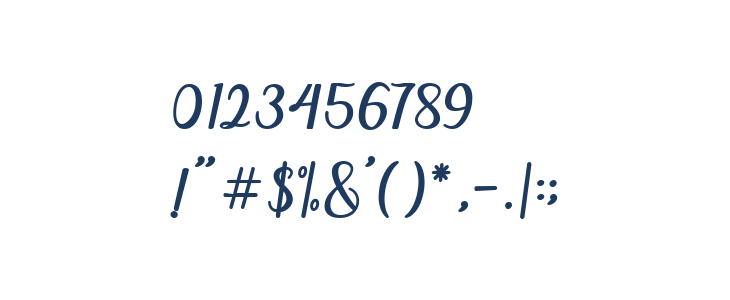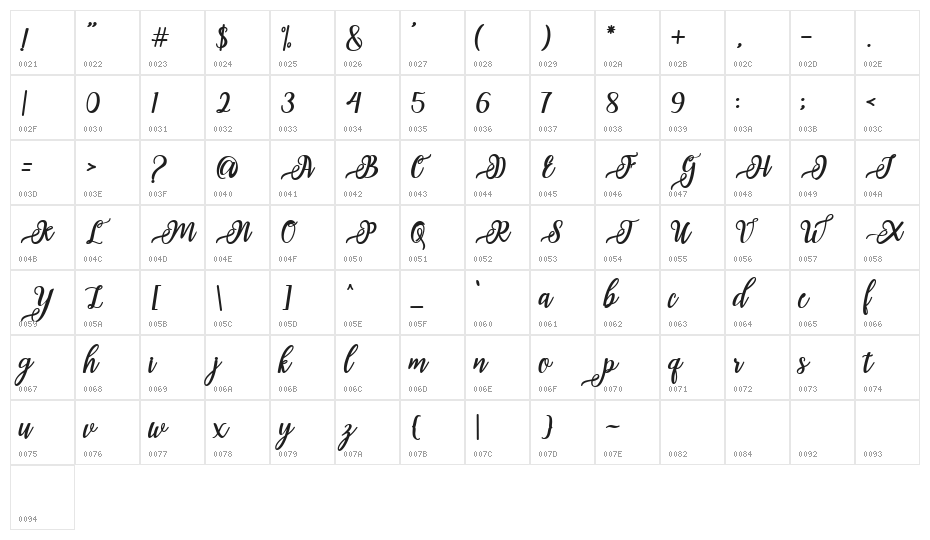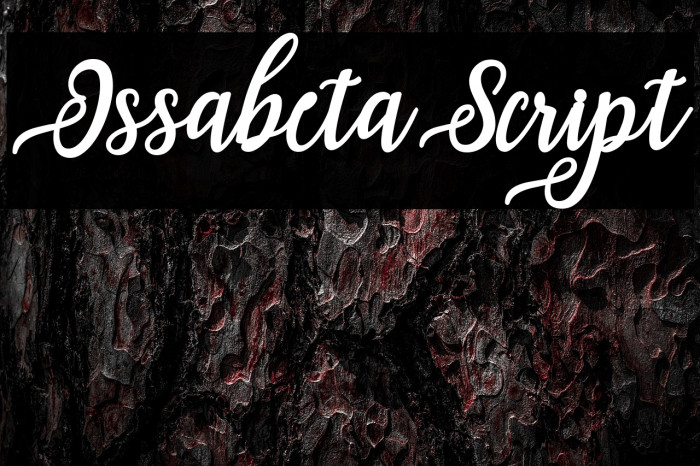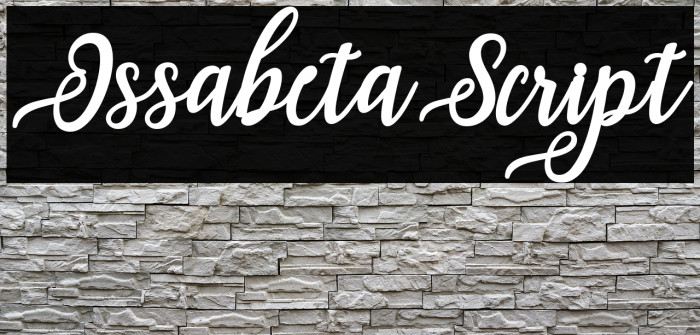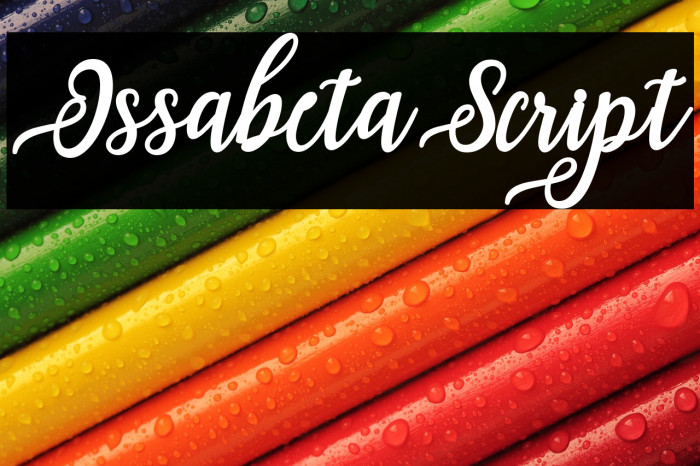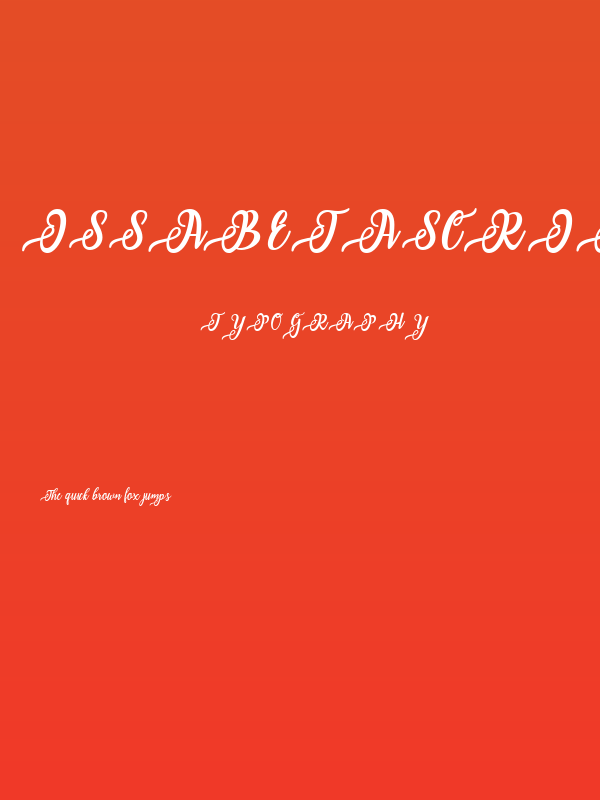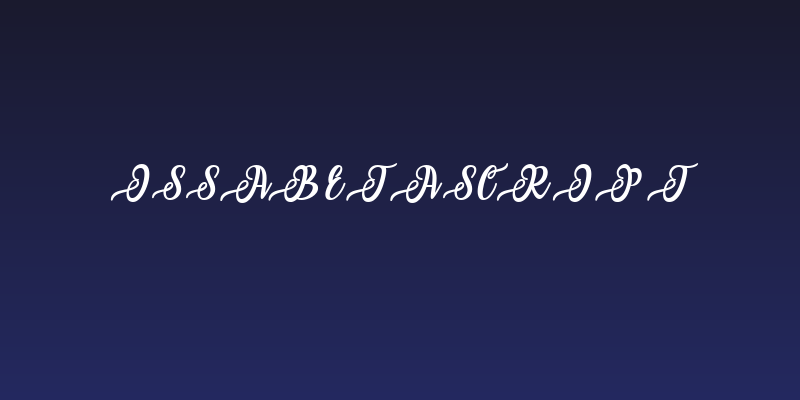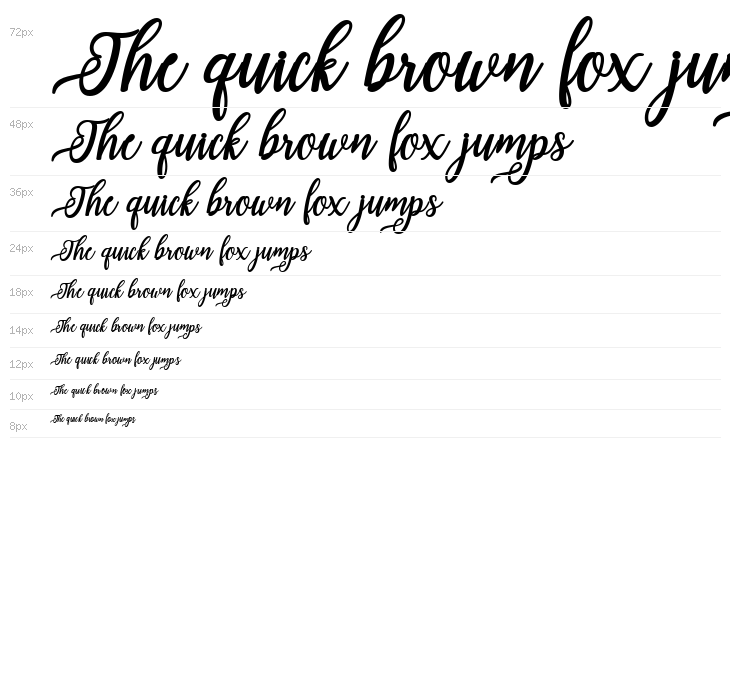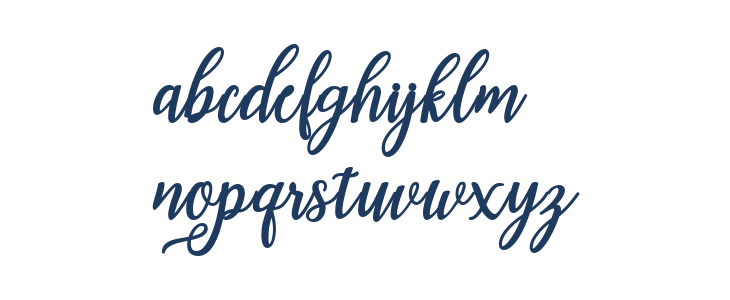
IssabetaScript Font
IssabetaScript Description
This elegant script font features a flowing, cursive style with smooth, connected strokes that give it a graceful and sophisticated appearance. The uppercase letters are adorned with subtle flourishes, adding a touch of flair without overwhelming the design. The lowercase letters maintain a consistent rhythm, creating a harmonious look that is easy to read while still conveying a sense of elegance. The numerals are styled to match the overall aesthetic, ensuring a cohesive appearance across all characters. Special characters are thoughtfully designed to complement the script style, making this font versatile for various uses.
| Overall Style | Elegant, Decorative |
| Use Case | Logos, Invitations, Decorative text |
| Proposed Projects | Ideal for wedding invitations, elegant branding, personal stationery, and decorative signage. |